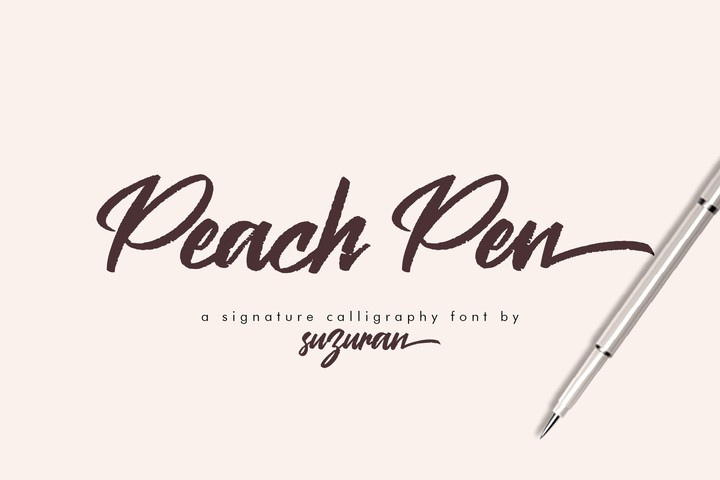
Peach Pen Script Font
Peach Pen Script Font is perfect for beauty salon branding, spring wedding invitations, bakery packaging, feminine lifestyle blogs, organic skincare labels, boutique clothing tags, romantic greeting cards, baby shower materials, wellness spa signage, and soft feminine product branding.
Peach Pen Script Font is exciting because it perfectly captures the gentle warmth and natural beauty of soft femininity, creating a typeface that radiates comfort, tenderness, and approachable elegance. This font brings sweet sophistication and nurturing charm to any project, making it ideal for brands that want to convey warmth, care, and gentle luxury. Its soft flowing strokes and organic curves create an atmosphere of comfort and natural beauty that resonates with audiences seeking authentic feminine expression.
Peach Pen Script Font family includes regular, light, and medium weights, along with delicate flourishes, botanical ornaments, and gentle swash alternates, providing designers with comprehensive tools for creating soft, feminine typography and nurturing brand experiences.
This delightful script typeface combines natural handwriting beauty with contemporary design sensibility, making Peach Pen Script Font Free Download an exceptional choice for projects celebrating gentle femininity and natural elegance. The font's organically flowing letterforms feature soft pen pressure variations and natural connections that mirror the gentle warmth of peach blossoms and spring sunshine.
Whether you're designing wellness brand identity, romantic event stationery, or gentle beauty campaigns, Peach Pen Script Font delivers unmatched warmth and feminine appeal. The font excels in both intimate personal applications and commercial branding where soft elegance and approachable luxury create emotional connections.
Creative professionals appreciate Peach Pen Script Font for its ability to instantly communicate gentleness and natural beauty while maintaining professional elegance and readability. The font's nurturing character makes it particularly effective for wellness brands, beauty services, and lifestyle companies targeting feminine audiences.
Each character reflects the gentle touch of caring hands, featuring soft curves and natural flow that creates typography as comforting and beautiful as a warm embrace or spring morning.